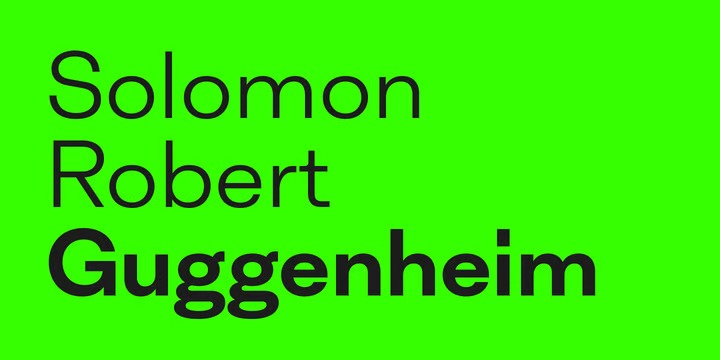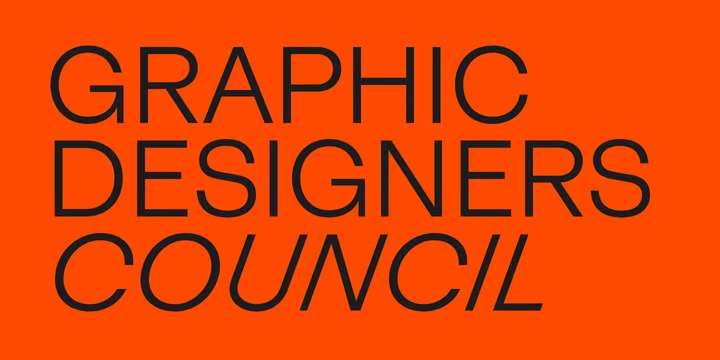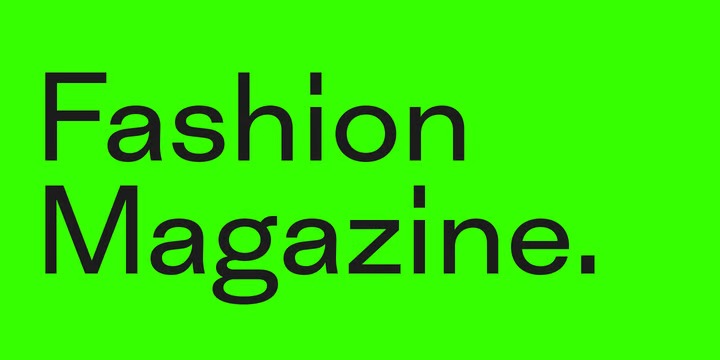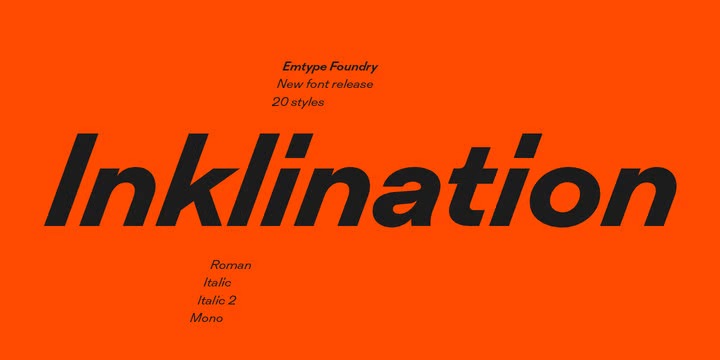
Inklination Sans Serif Font is a contemporary sans serif font family manufactured by Emtype Foundry. It breathes quite better than larger x-height typefaces, with the sensation of air and more whitespace. This, combined with long ascenders and descenders, makes it look luxurious, elegant and refined. The family has two sets of italics, a regular one with 10º of inclination, and a more brutalist one with 20º. A monospaced version of five weights complete this versatile family. For more info visit emtype website.